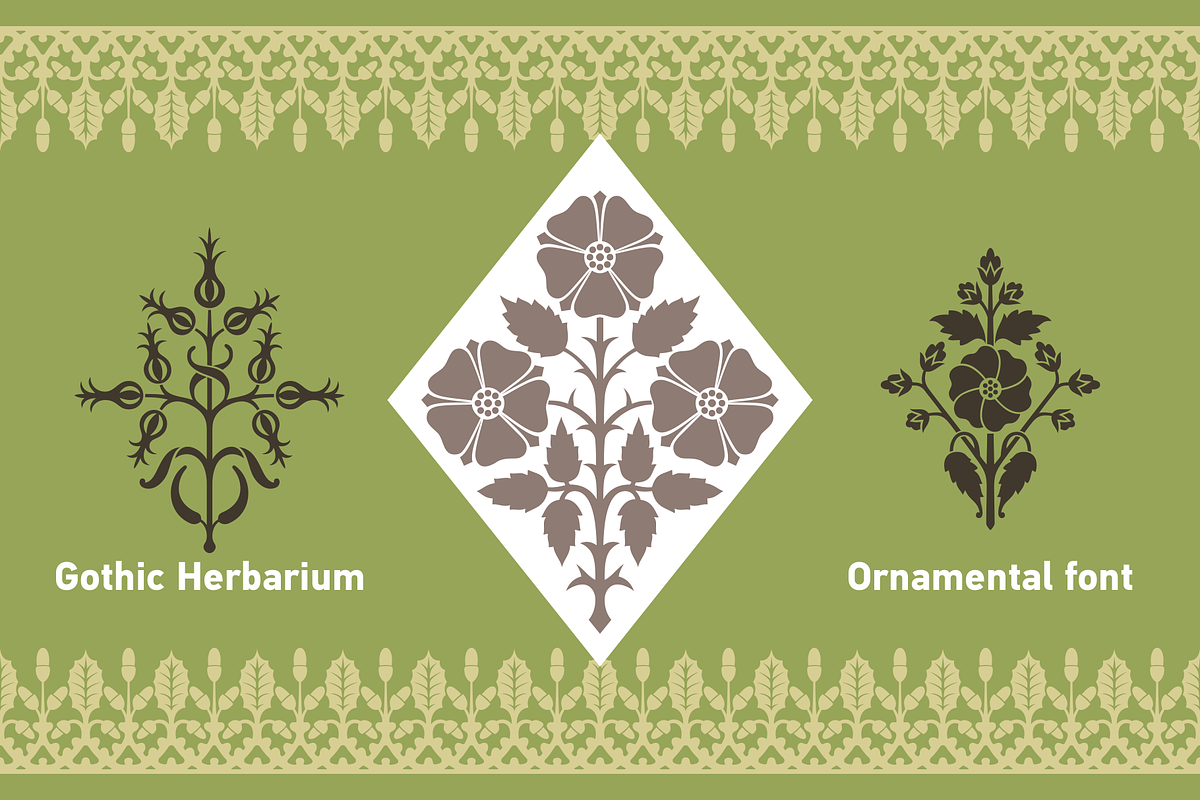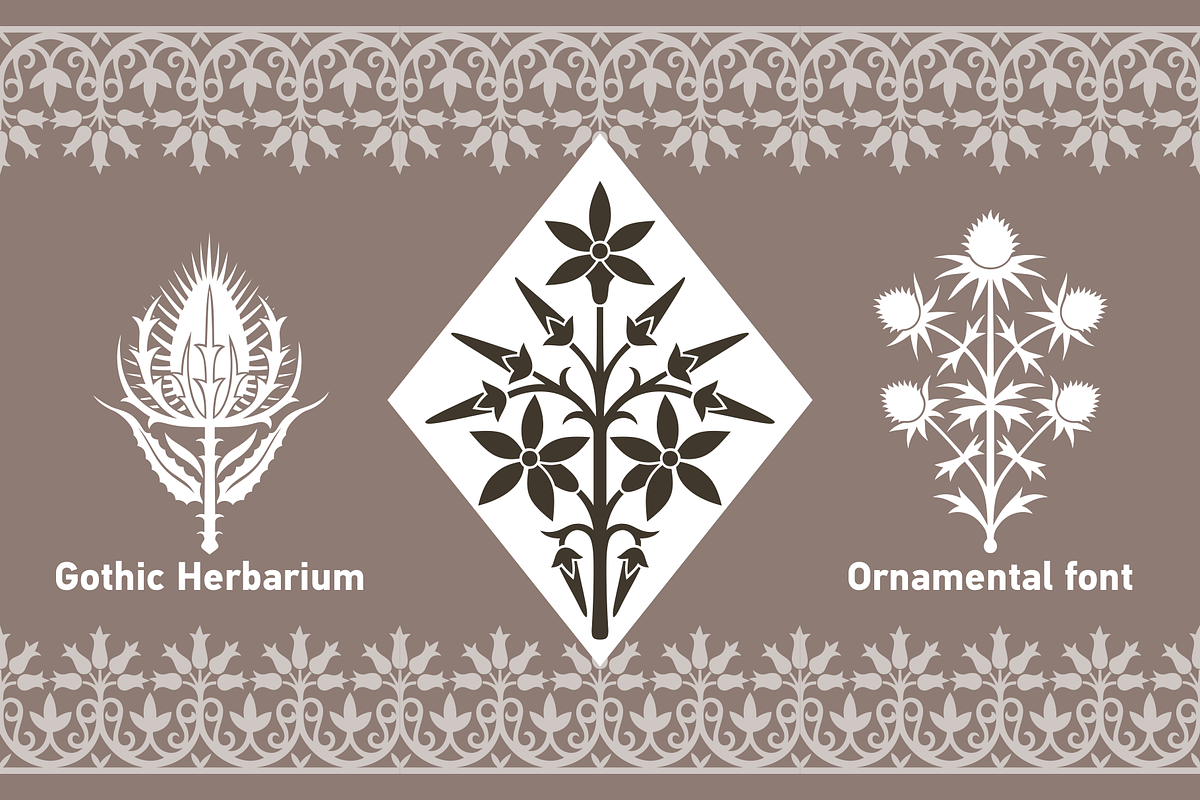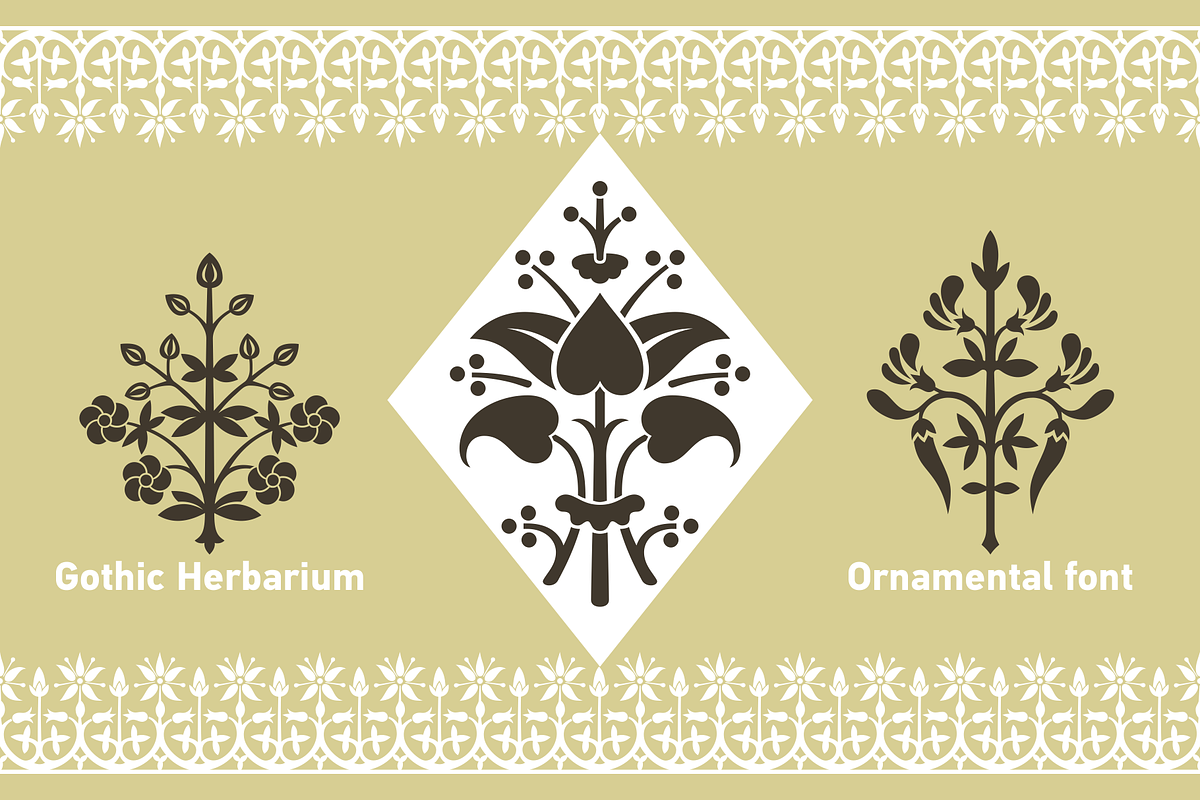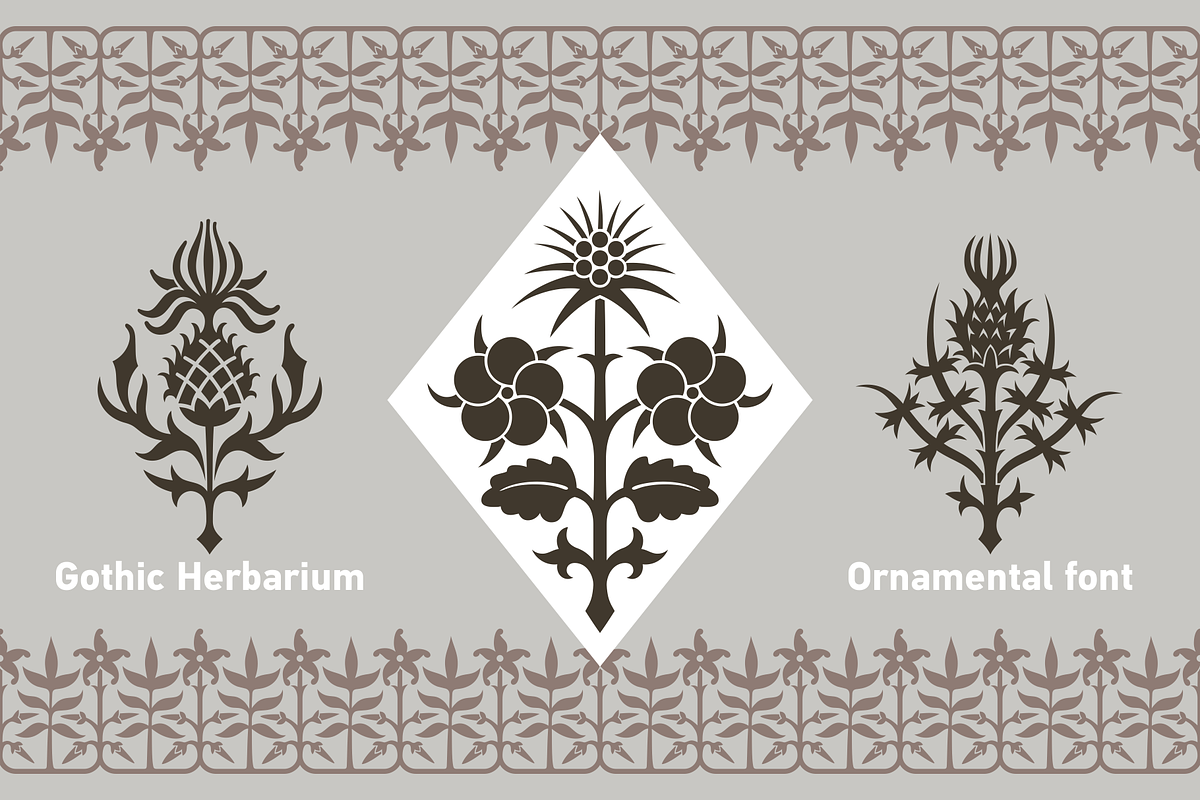
Gothic Herbarium
Ornamental font based on the Gothic Revival ornaments developed by Augustus Pugin (1812-1852). This is a collection of ornamental plants and flowers arranged in a convenient font file that may be always at hand. Decorate your projects with high quality and interesting ornaments!